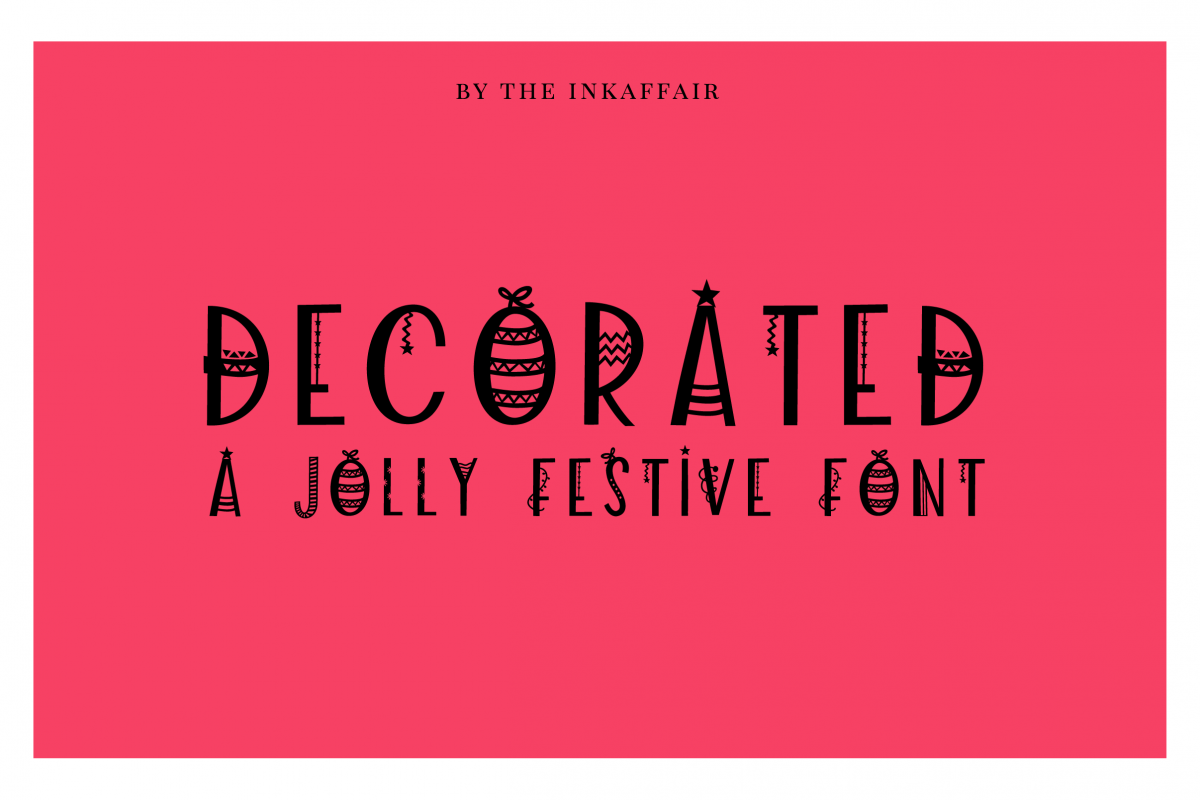
Decorated - a jolly christmas font
Decorated is a fun, uppercase festive font, perfect for the holiday season.
Comes with trendy and whimsically pretty hand drawn, adorned alphabets and includes uppercase, lowercase, numbers and punctuation.